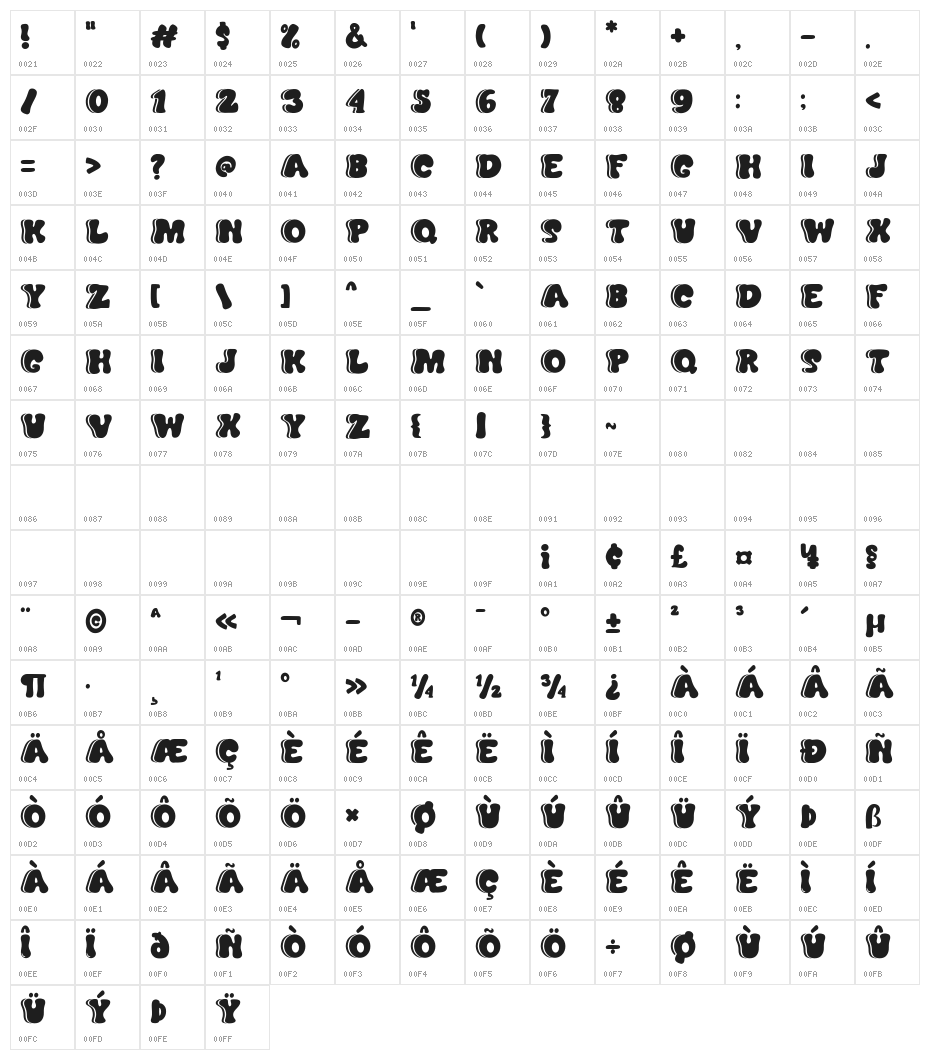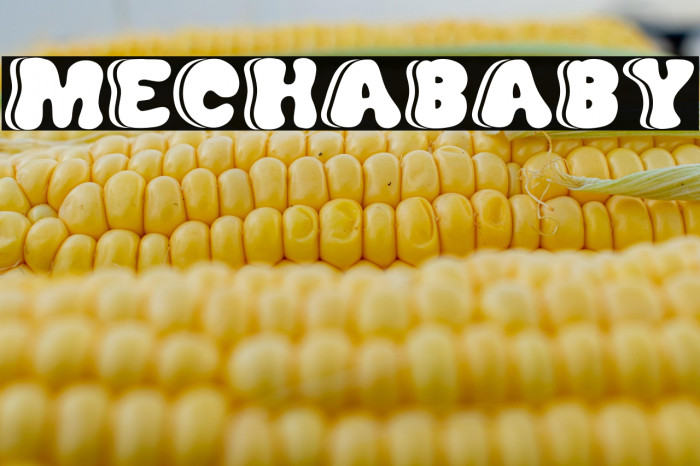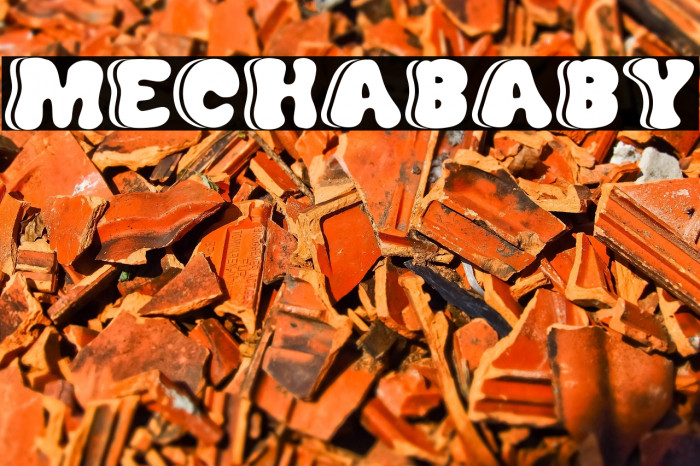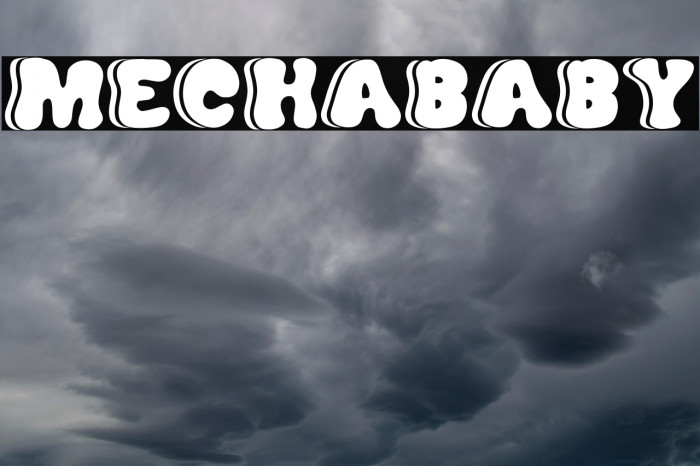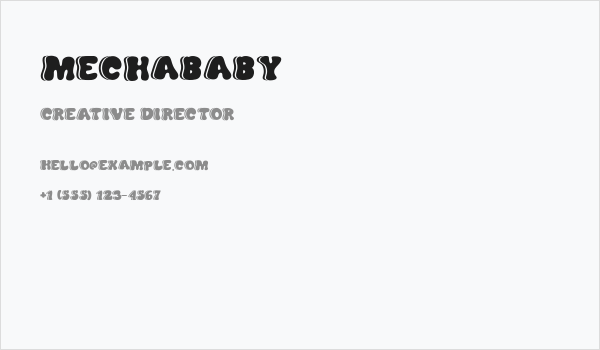
mechababy Font
mechababy Description
This font features a playful and bold design with a bubbly, rounded appearance. The characters are thick and have a whimsical, almost cartoon-like quality, making them stand out with a strong presence. The edges are smooth, and the overall look is cohesive and friendly, suitable for designs that aim to capture attention with a fun and approachable vibe. The font's unique style is characterized by its exaggerated curves and bold strokes, which give it a distinctive and memorable look.
| Overall Style | Playful, Fun, Cartoon-like |
| Proposed Projects | Ideal for children's books, playful branding, party invitations, and any project needing a fun, eye-catching typeface. |